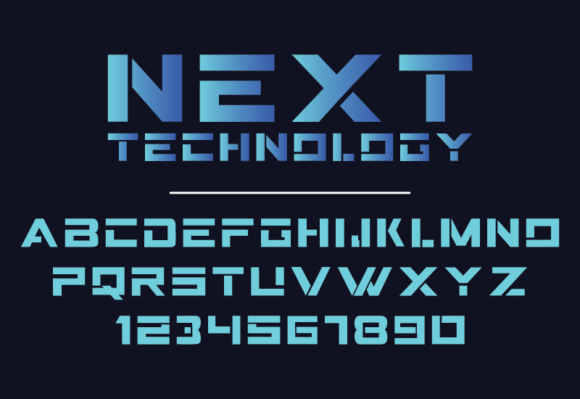
Journey into the realm of digital innovation with Next Technology Font, the ultimate sans serif typeface designed to propel your designs into the future. With its sharp edges, sleek curves, and a subtle hint of cybernetic flair, Next Technology exudes an aura of technological prowess that is sure to leave a lasting impression. Step into the world where imagination meets reality, where typography transcends boundaries and becomes an embodiment of cutting-edge aesthetics.
Next Technology is more than just a font; it's a visual symphony that harmonizes seamlessly with the digital landscape. Its carefully crafted strokes evoke a sense of dynamism and energy, making it the perfect choice for projects that demand a futuristic and high-tech vibe. Imagine your designs adorned with this typographic marvel, captivating audiences with its bold presence and undeniable charisma.
Whether you're crafting eye-catching banners, designing sleek logos, or creating dynamic social media posts, Next Technology Font rises to the challenge like a digital virtuoso. Its versatility knows no bounds, effortlessly adapting to a myriad of digital canvases. Let your creativity flourish as you witness your designs transformed into masterpieces, imbued with the spirit of innovation and technological prowess.
With Next Technology Font as your creative companion, you'll unlock a new realm of possibilities. Its meticulously designed characters are not just letters; they are conduits through which your ideas take flight, soaring beyond the confines of the ordinary and into the stratosphere of digital brilliance. Experience the exhilaration of creating designs that resonate with the pulse of the digital age, designs that speak the language of innovation and leave an indelible mark on the minds of your audience.
Next Technology Font is not just a font; it's a revolution. It's a gateway to a world where creativity knows no limits, where the boundaries of design are constantly pushed, and where your imagination reigns supreme. Embrace the future of typography, download Next Technology Font today, and let your designs transcend the ordinary and become emblems of digital excellence.